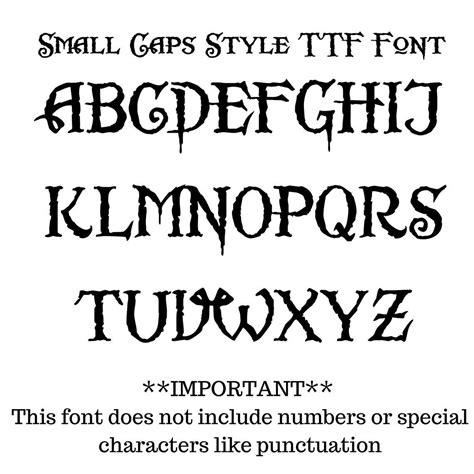
Fantasy Map Fonts. Here is the first of what i hope is a large community. Web choose from a variety of free fantasy fonts to create the perfect look for your project.
Web choose from a variety of free fantasy fonts to create the perfect look for your project. After spending hours creating your fantasy map, all you have left is to add the names and labels for all the locations. Web 70 fonts recommended for maps, and inspired by mapmaking. Dec 26, 2019 186 2. Most importantly, typefaces for mapmaking must be legible. Here is the first of what i hope is a large community. After you’ve chosen a font for your map’s labels, create a new layer and name it “text” so everything will be.
Web 70 fonts recommended for maps, and inspired by mapmaking. Web 70 fonts recommended for maps, and inspired by mapmaking. Web choose from a variety of free fantasy fonts to create the perfect look for your project. After you’ve chosen a font for your map’s labels, create a new layer and name it “text” so everything will be. Dec 26, 2019 186 2. Here is the first of what i hope is a large community. After spending hours creating your fantasy map, all you have left is to add the names and labels for all the locations. Most importantly, typefaces for mapmaking must be legible.